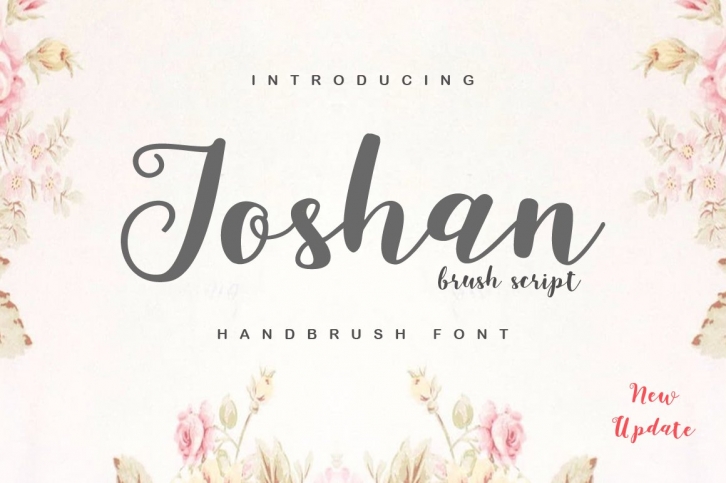
Introducing : Joshan Brush Script. Hand painted manuscripts inspired by the typeface typography viscous and hand letter. Combine with street art, graffiti, grunge, europe thick shades. Ideal for; Logo, design clothes, invitations, brochures, posters, greeting cards, product packaging, header, printed excerpts, album cover, etc.